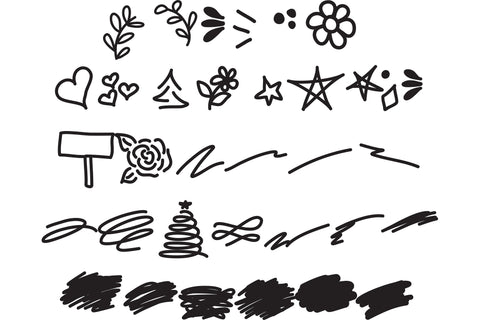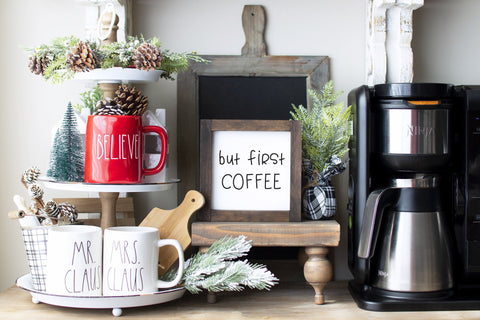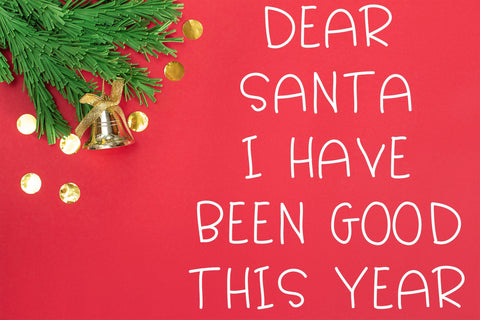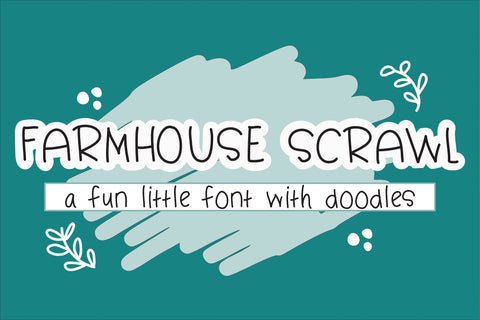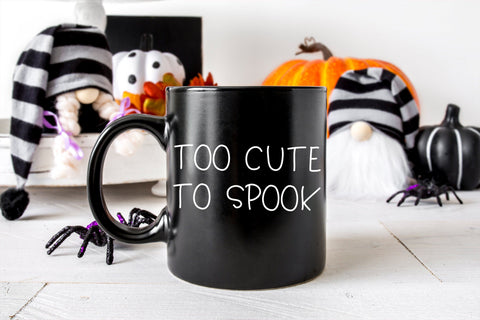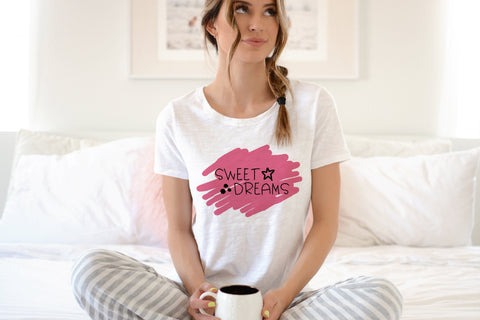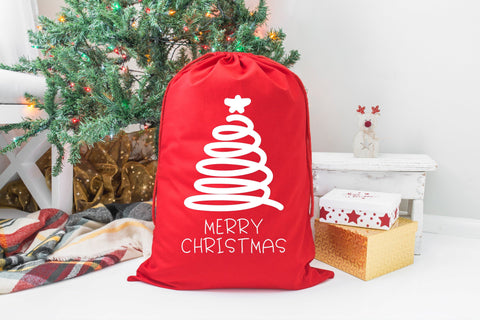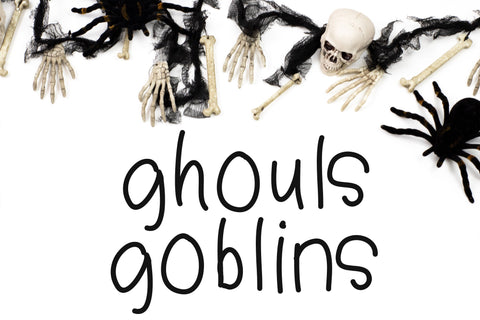
Farmhouse Scrawl - A Fun Little Font With Doodles
This fun little font has capital and lowercase letters along with numbers.
Included are fun swashes, blobs and other doodles.
FONT DOES NOT INCLUDE ANY PUNCTUATION.
The sans serif is perfect for pairing with multiple fonts and gives an organic look to your projects.